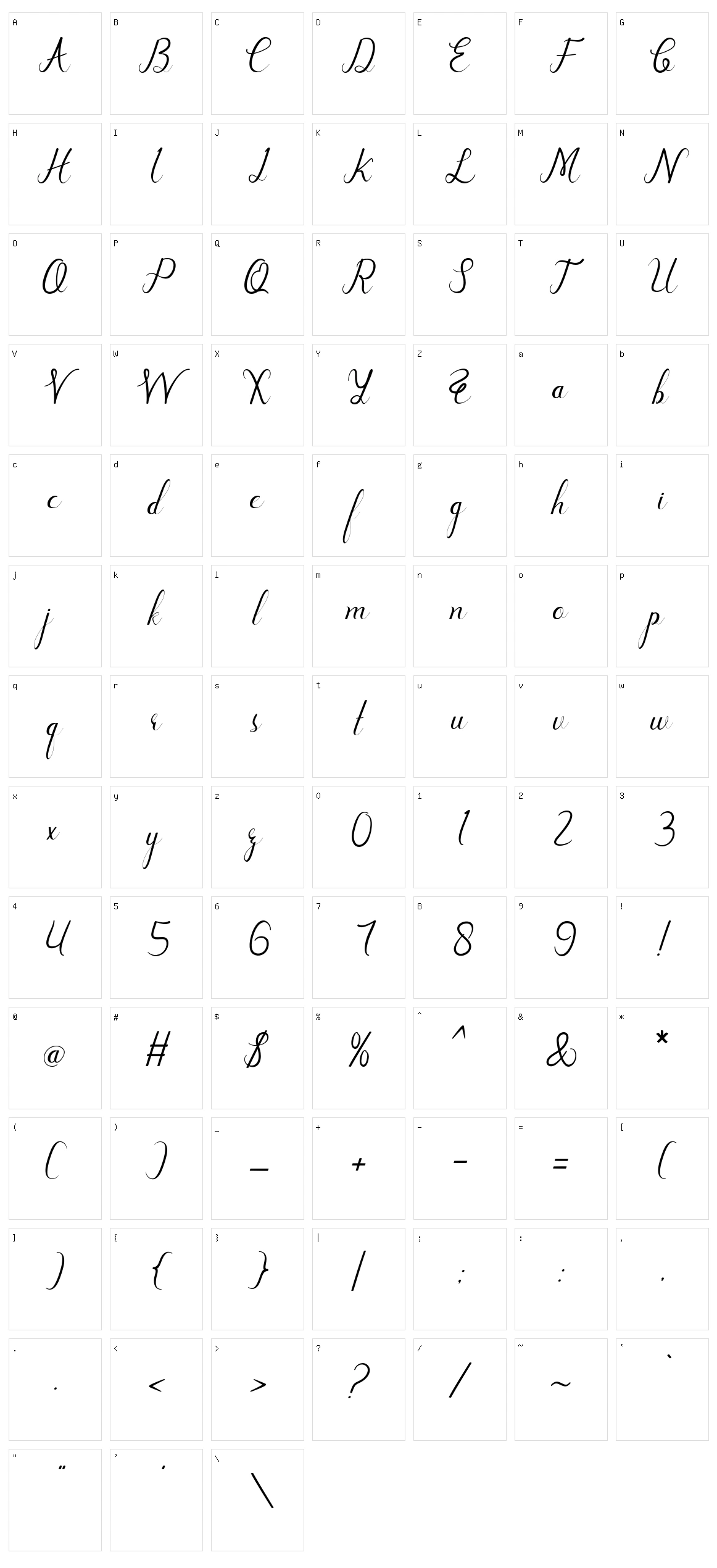
The free font New Lettering is carefully designed by Marwah Store, showcasing a thoughtful balance of creativity and usability and falls under the Script font style. When you download the ZIP file, it contains only 228.5 KB of font files, making it lightweight and quick to download. Please review the license details below to understand permitted usage and distribution rights. If license information is not available, we recommend using this font for personal projects only or contacting the author directly for commercial usage permissions.